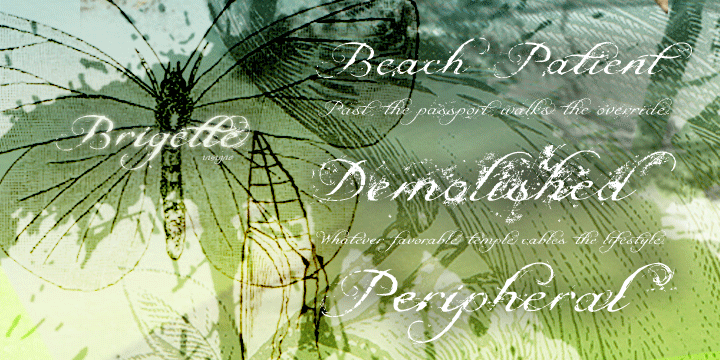
This frilly script has been acid dipped, scratched and destroyed for use in grungy design jobs or any other use that calls for a ragged script.
Three different degrees of deconstruction are available. The Alternate Two variant is highly distressed, and when rasterised by many programs at smaller point sizes appears almost illegible, but prints just fine.
OpenType features include 64 OpenType ligatures that can be used to extend the natural appearance of the lettering oldstye figures and ending swashes. More…